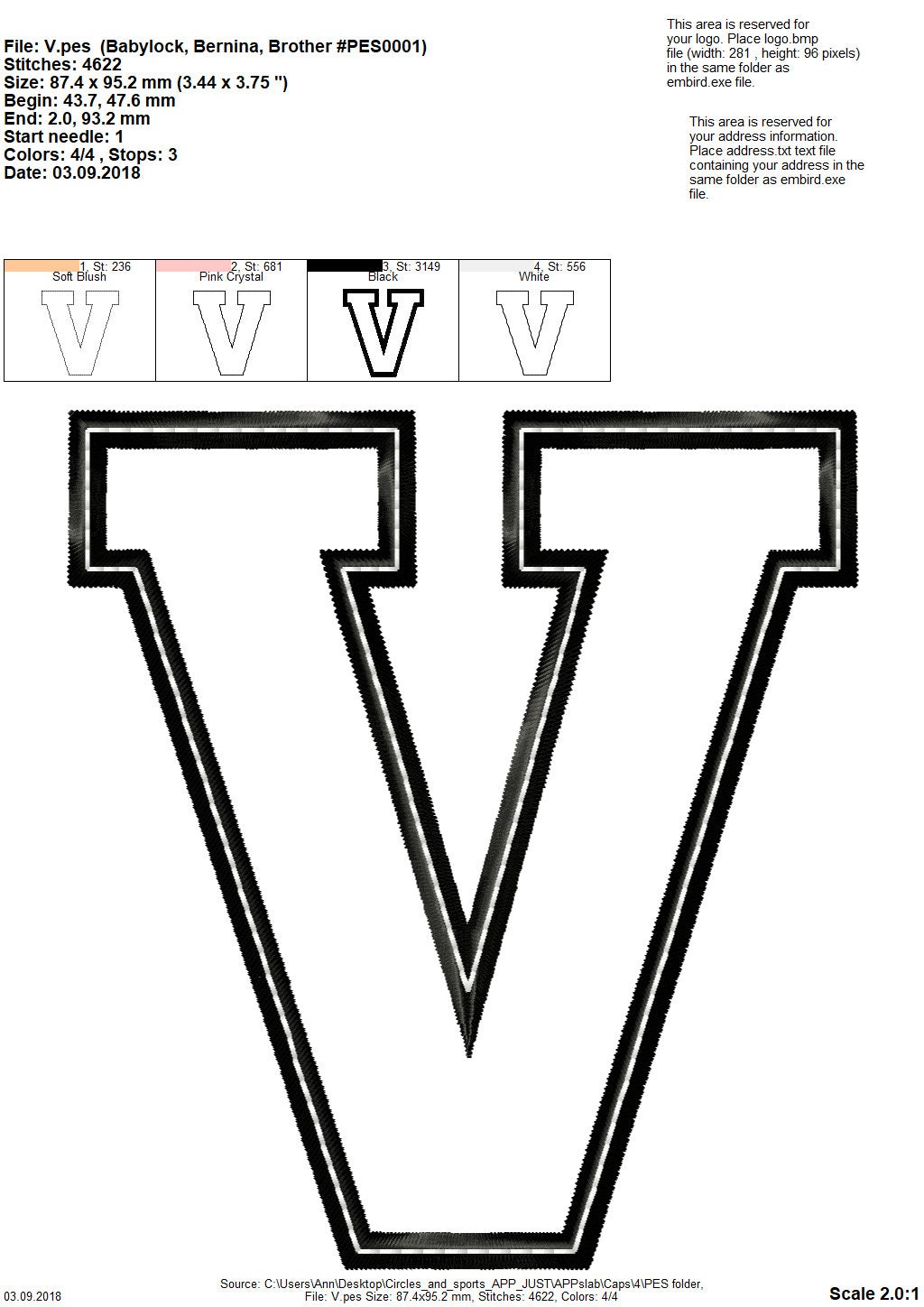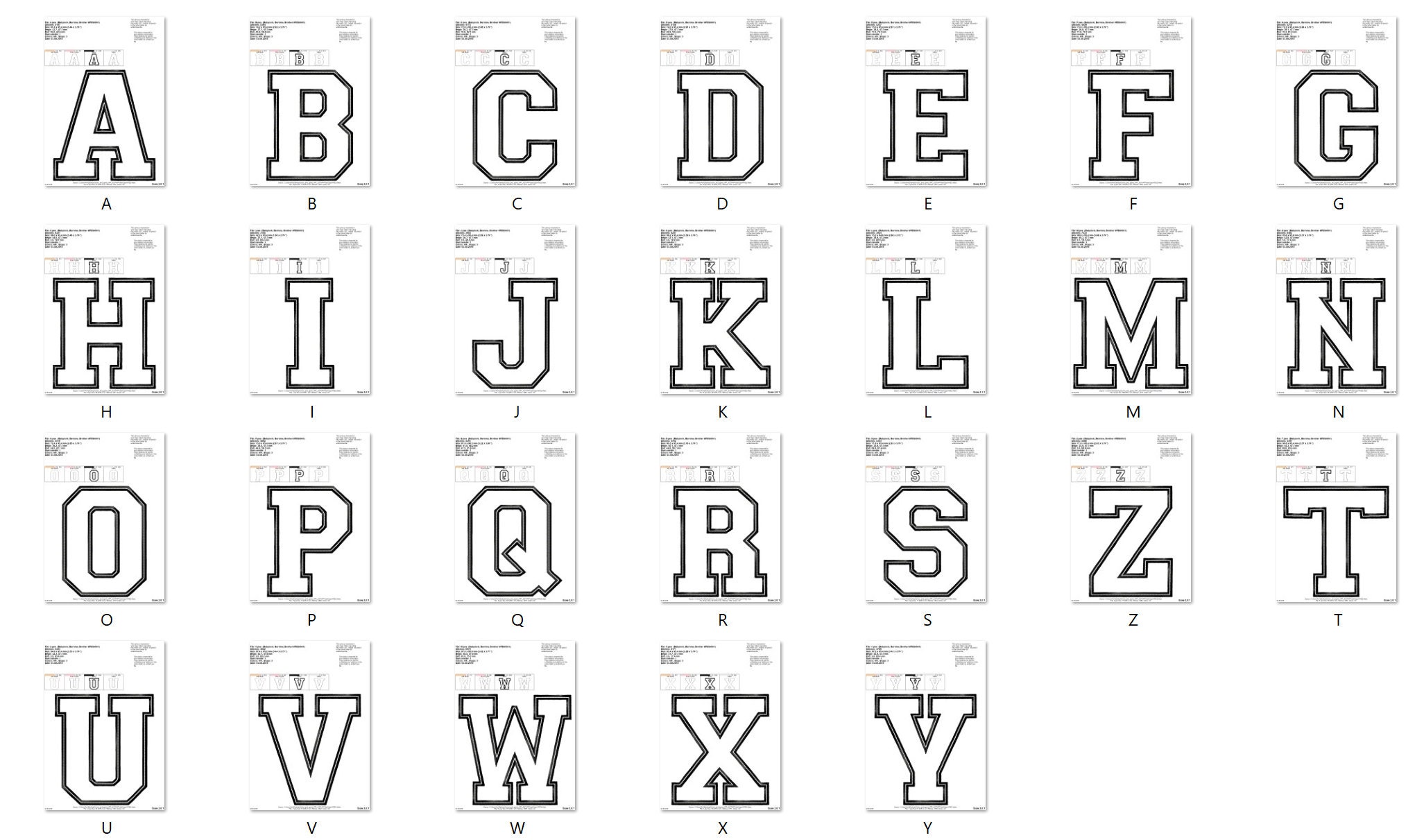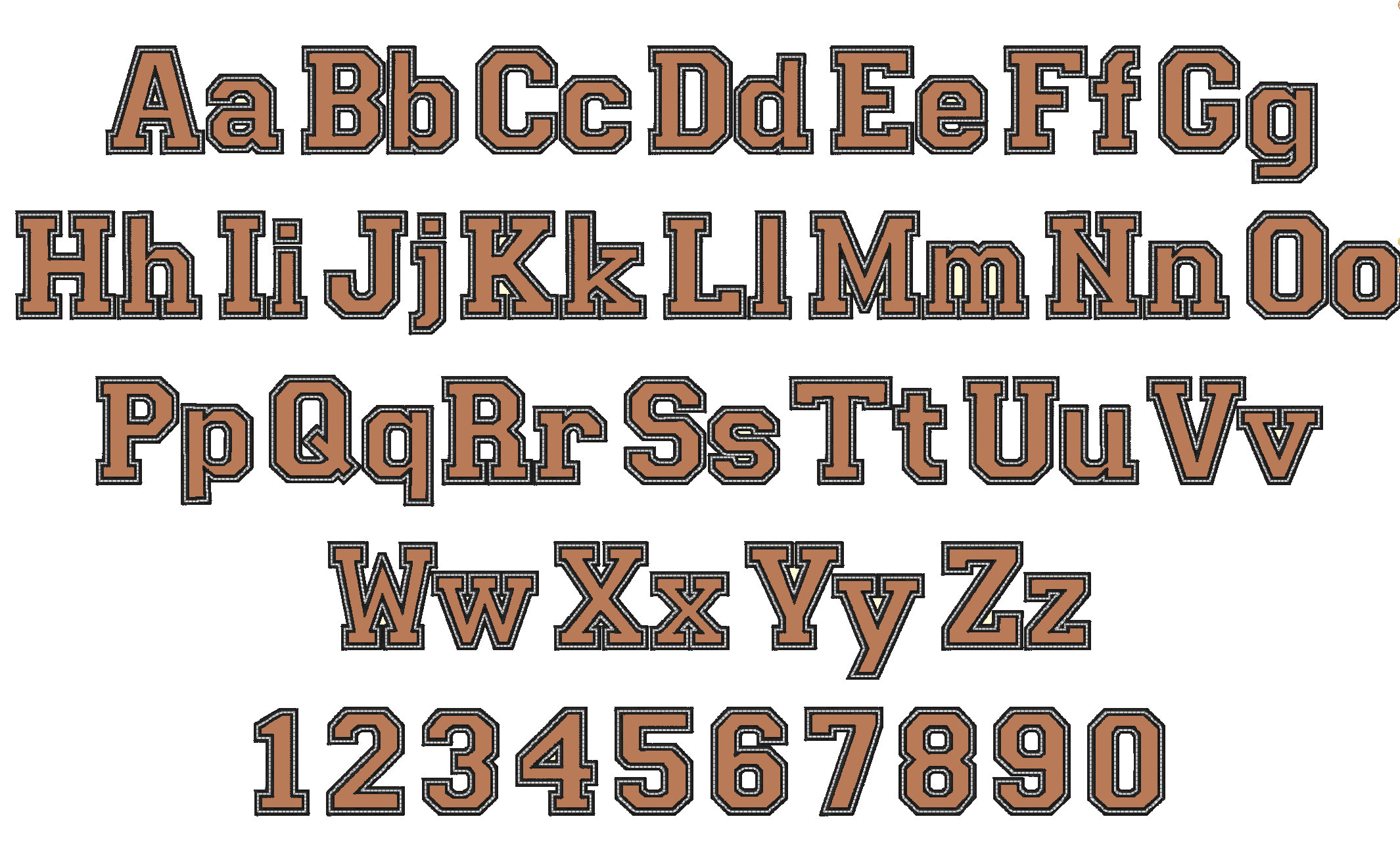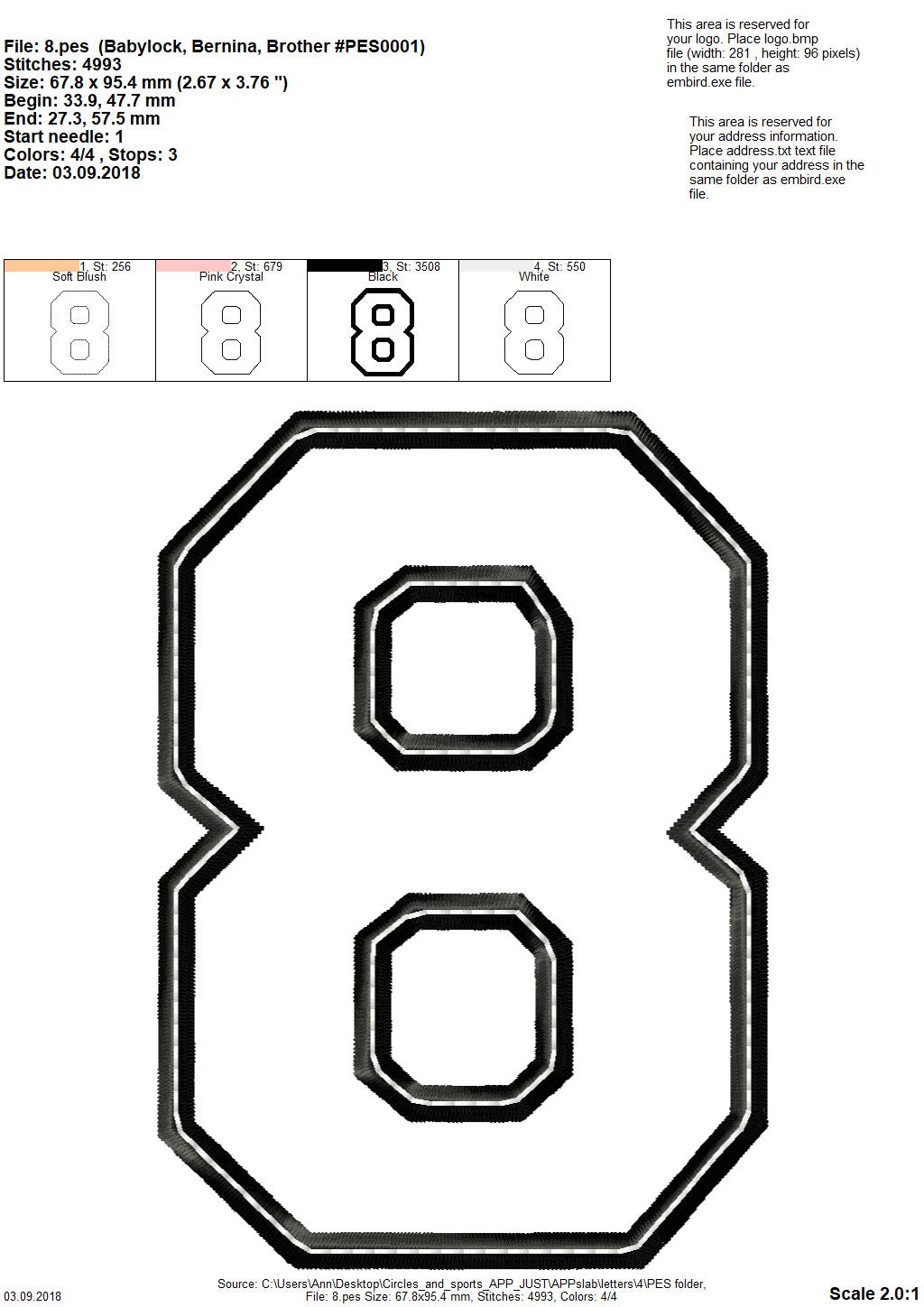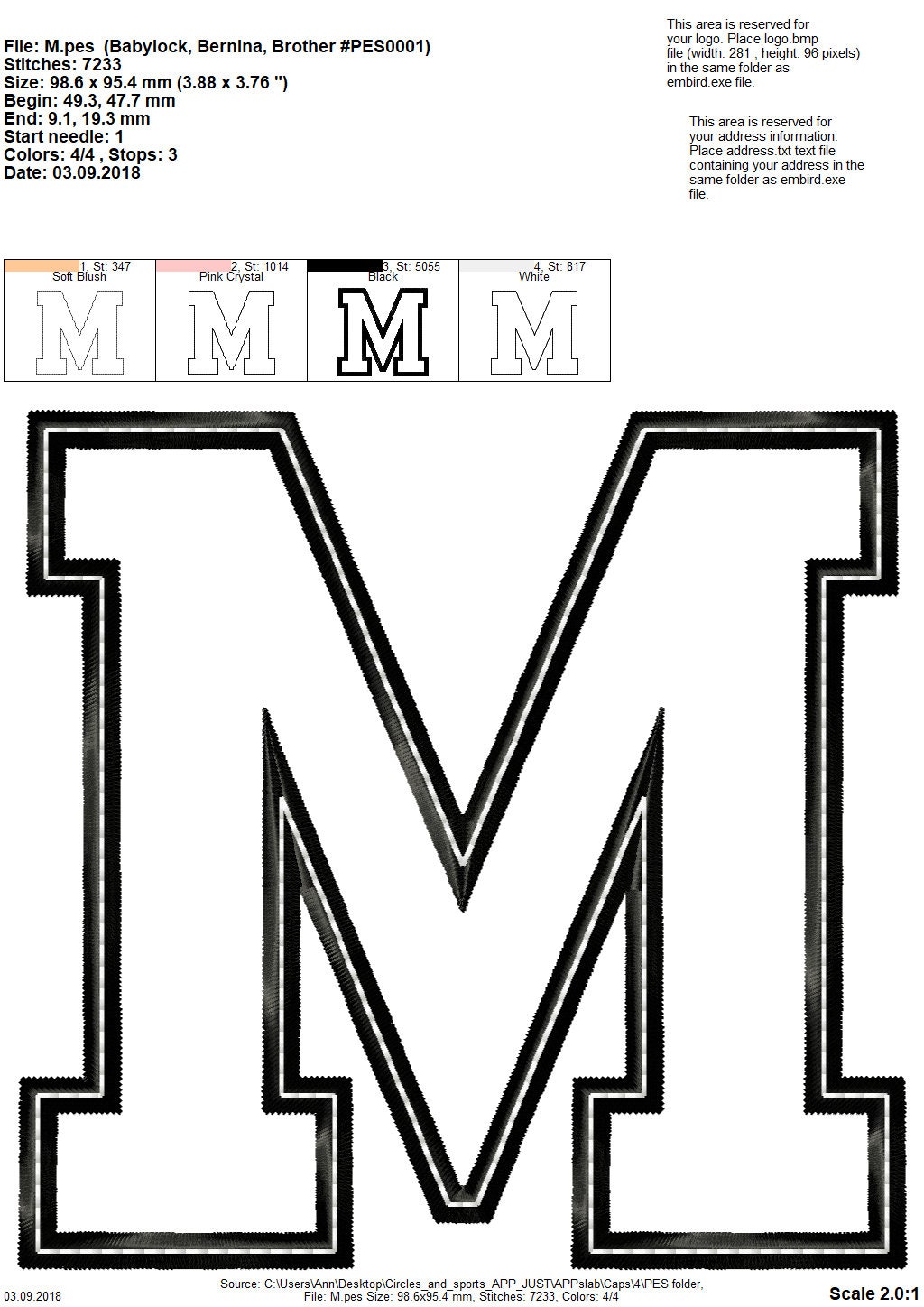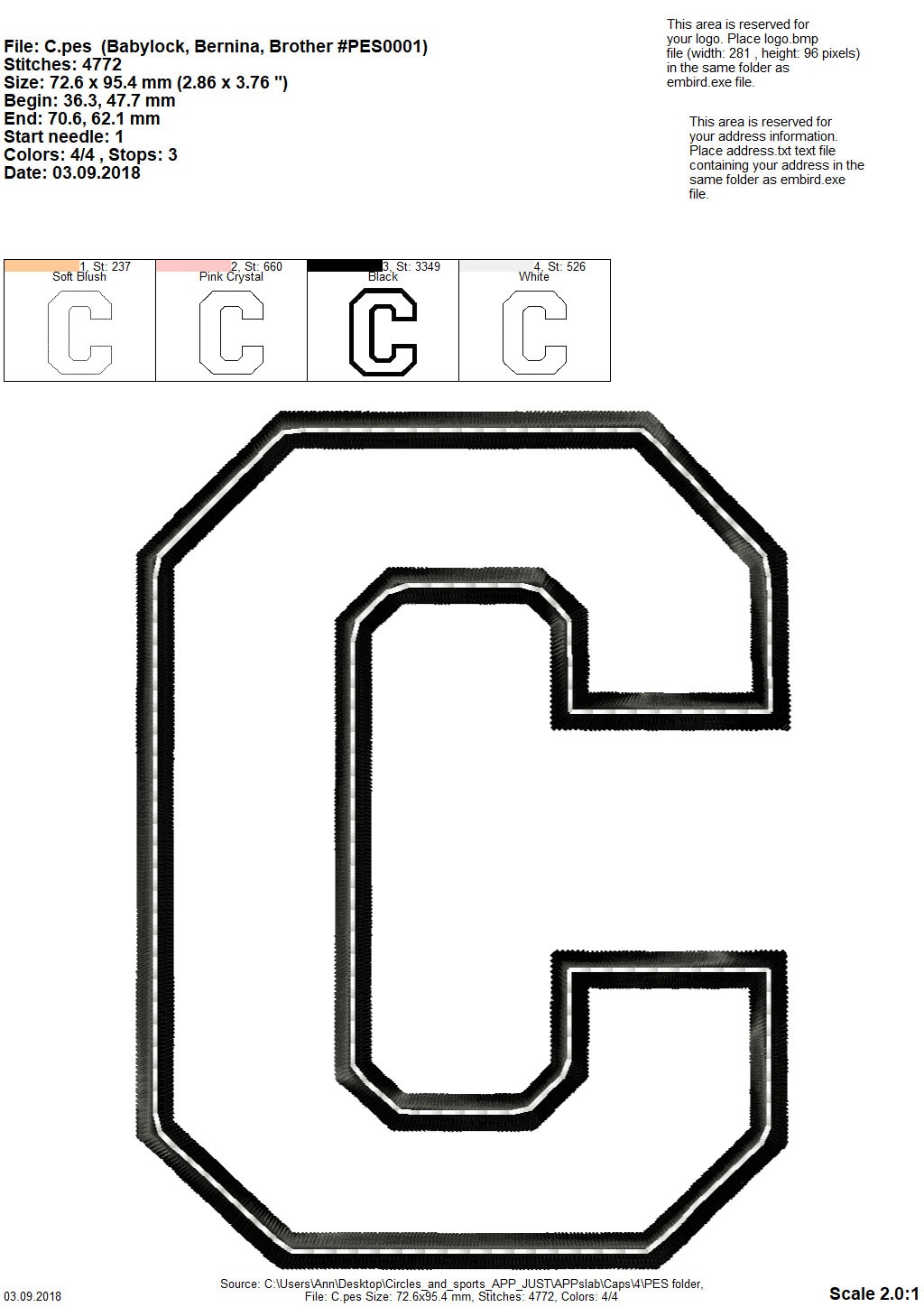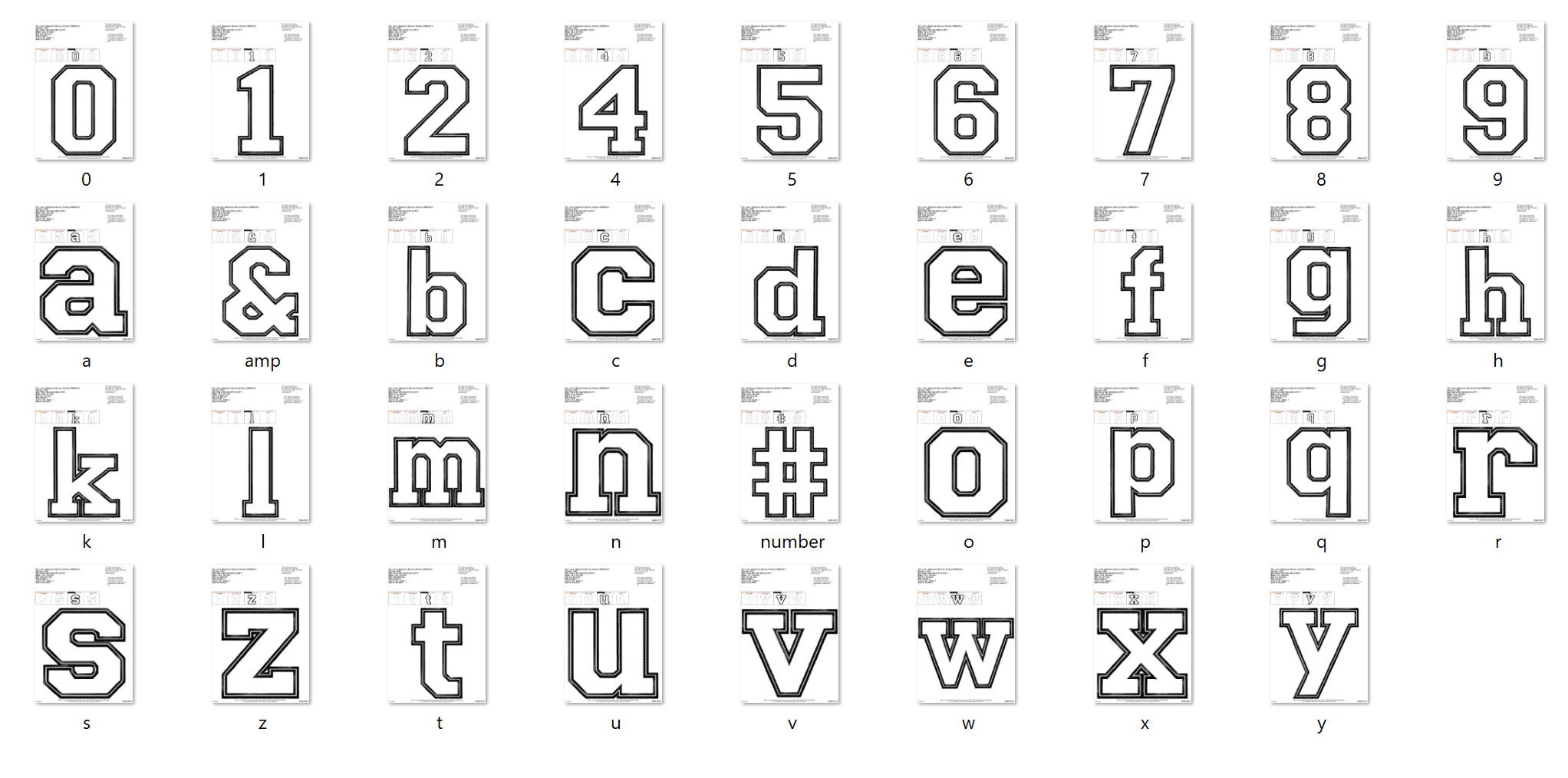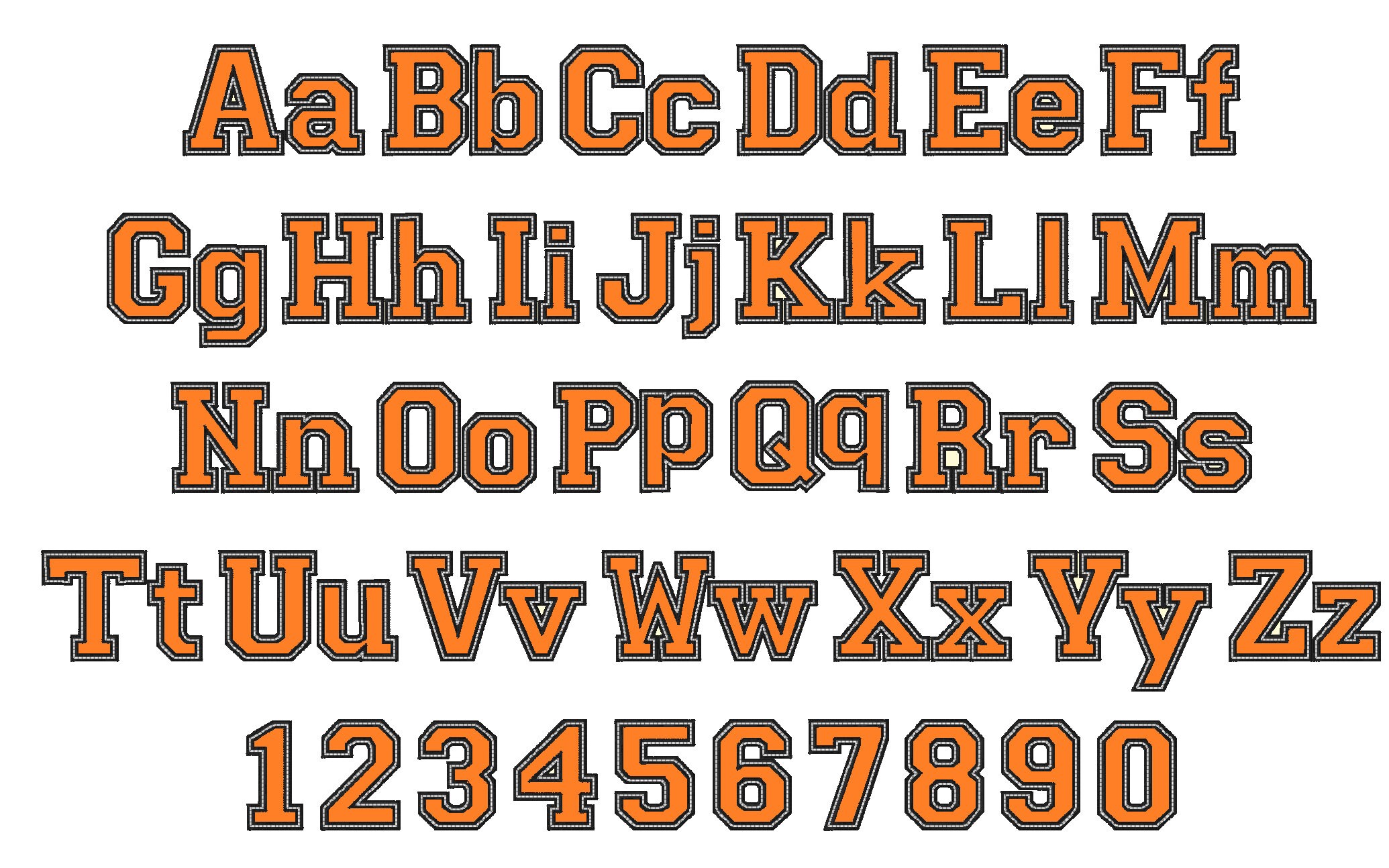
Block athletic Collegiate applique Sport Font machine embroidery applique designs
Uppercase and lowercase letters and numbers
Has wide nice wide satin applique stitch and top triple stitch on top for neat look and secure while washing. Can be skipped!